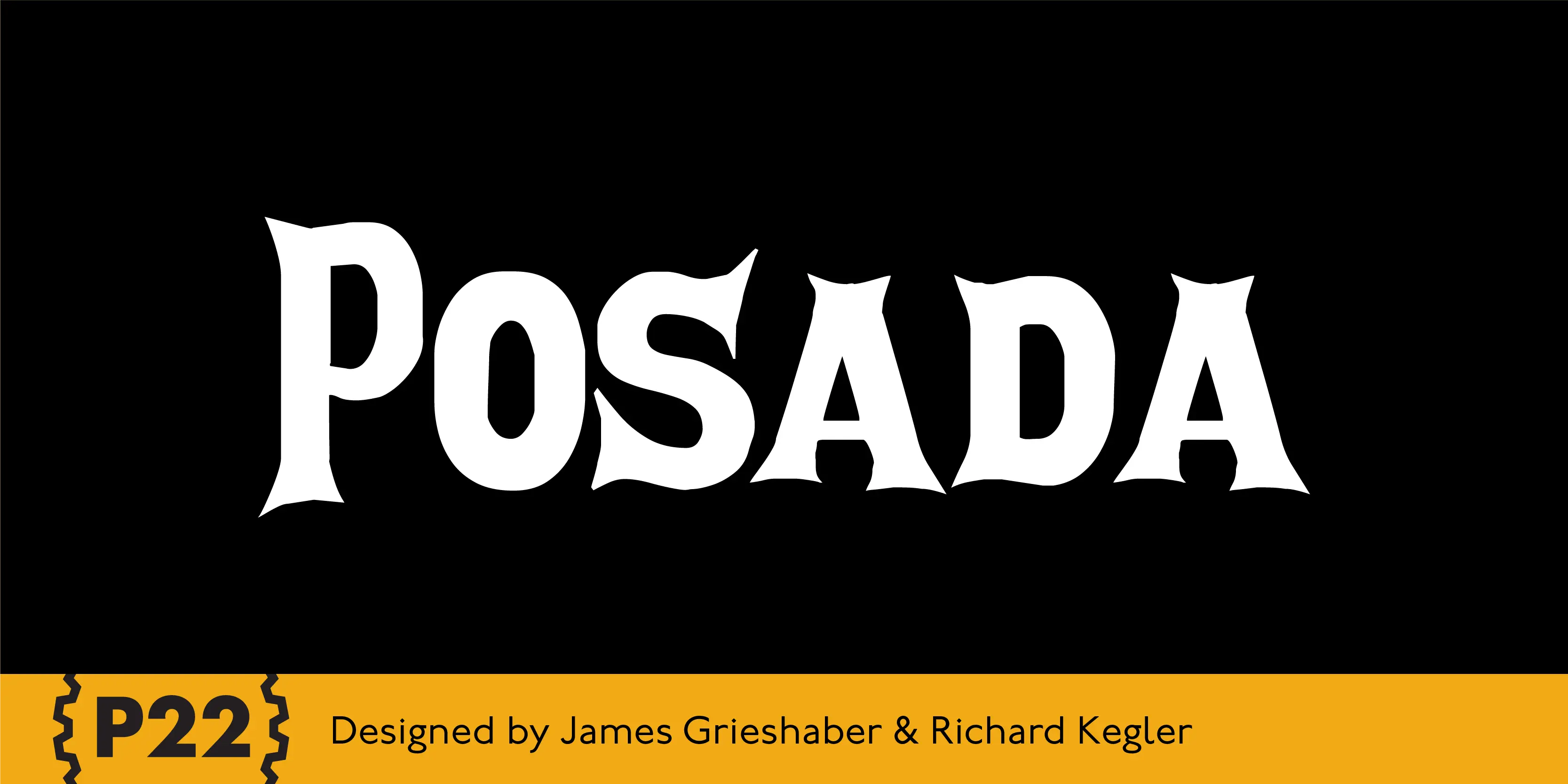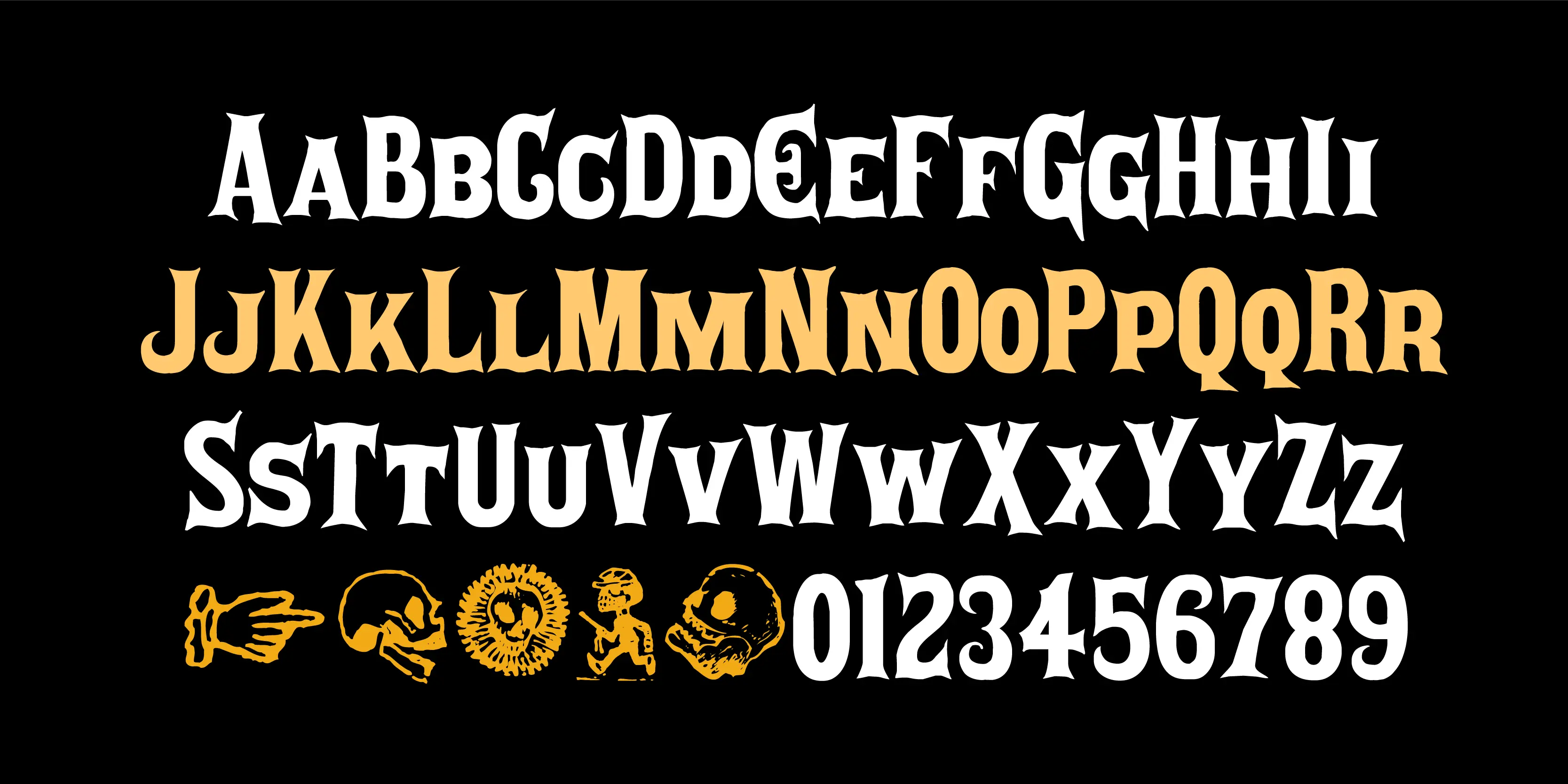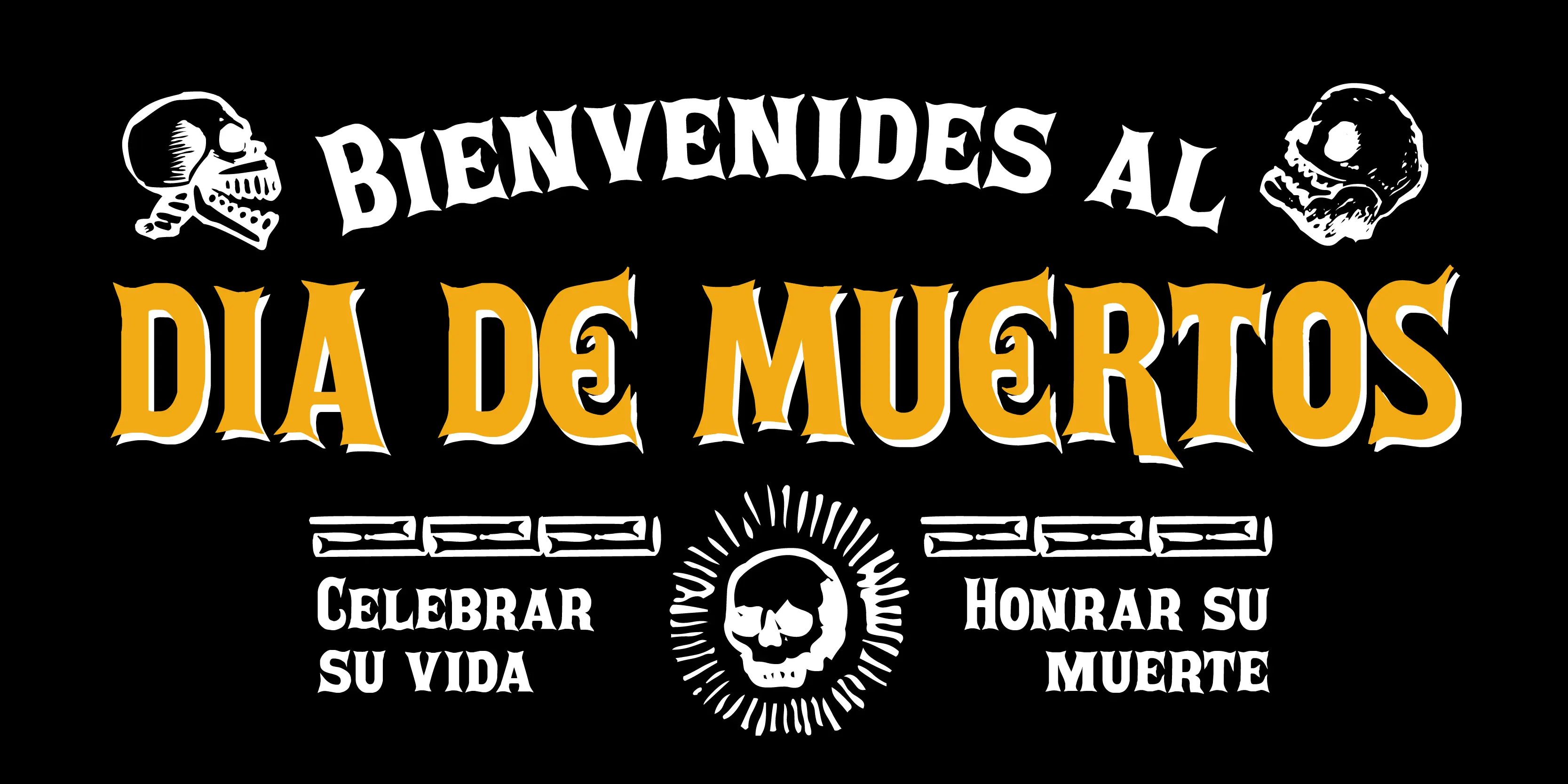
Posada Font Family
• Posada Irregular
• Posada Regular
• Posada Extras
Posada
Mexican printmaker Jose Guadalupe Posada (1851–1913) created a massive variety of material — broadsheets, cards, advertisements, posters, etc. — which largely represented a defense of the common man and a manifestation of the horrible and gruesome events of the day. His most notable imagery comes from his Calaveras celebrating the Day of the Dead. Calaveras often represent effigies of living people depicted as skeletons going about their daily activities. These are often humorous and playful in a way that helps bridge this world with the beyond. This set features 2 alphabet fonts and a set of 60 extras.